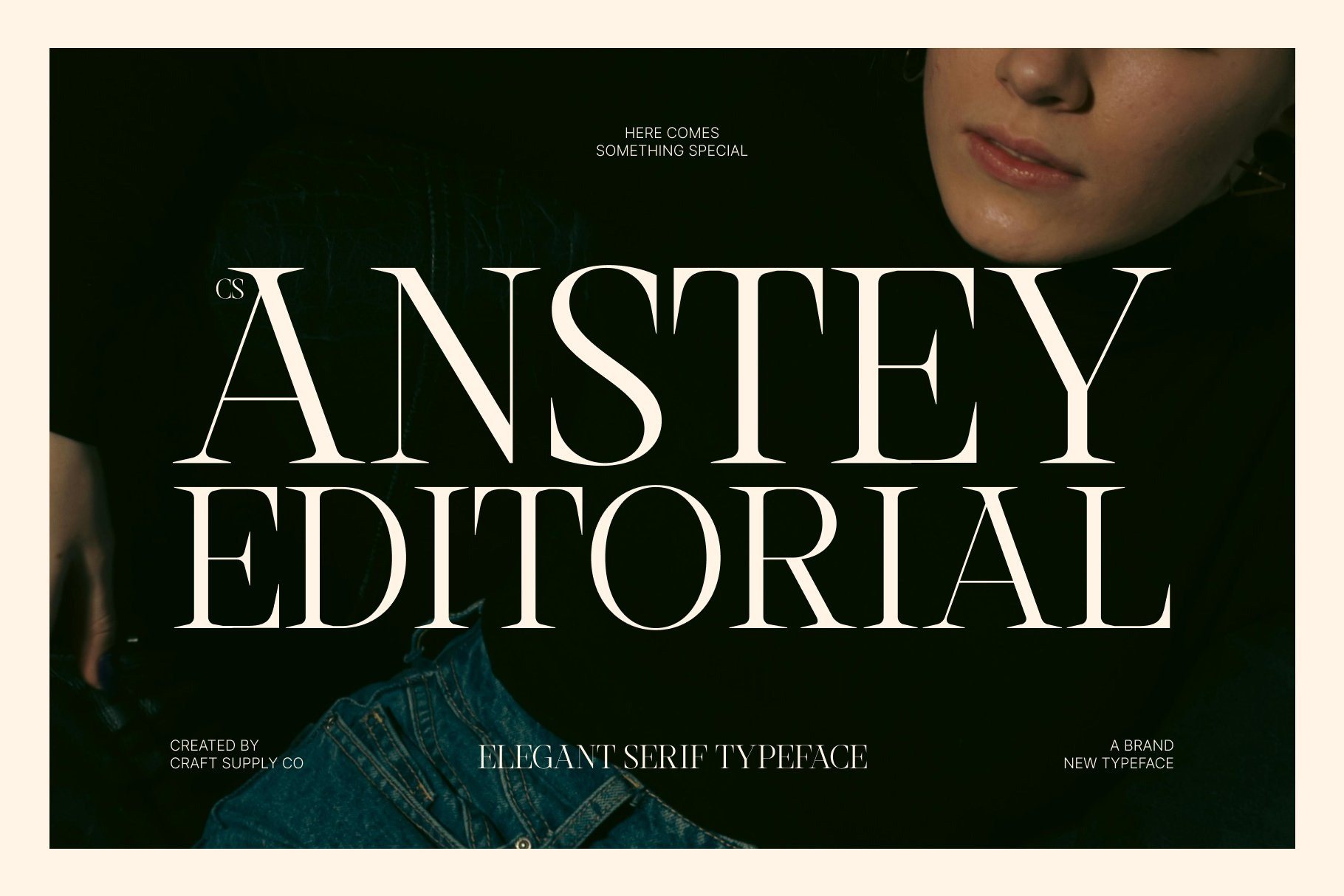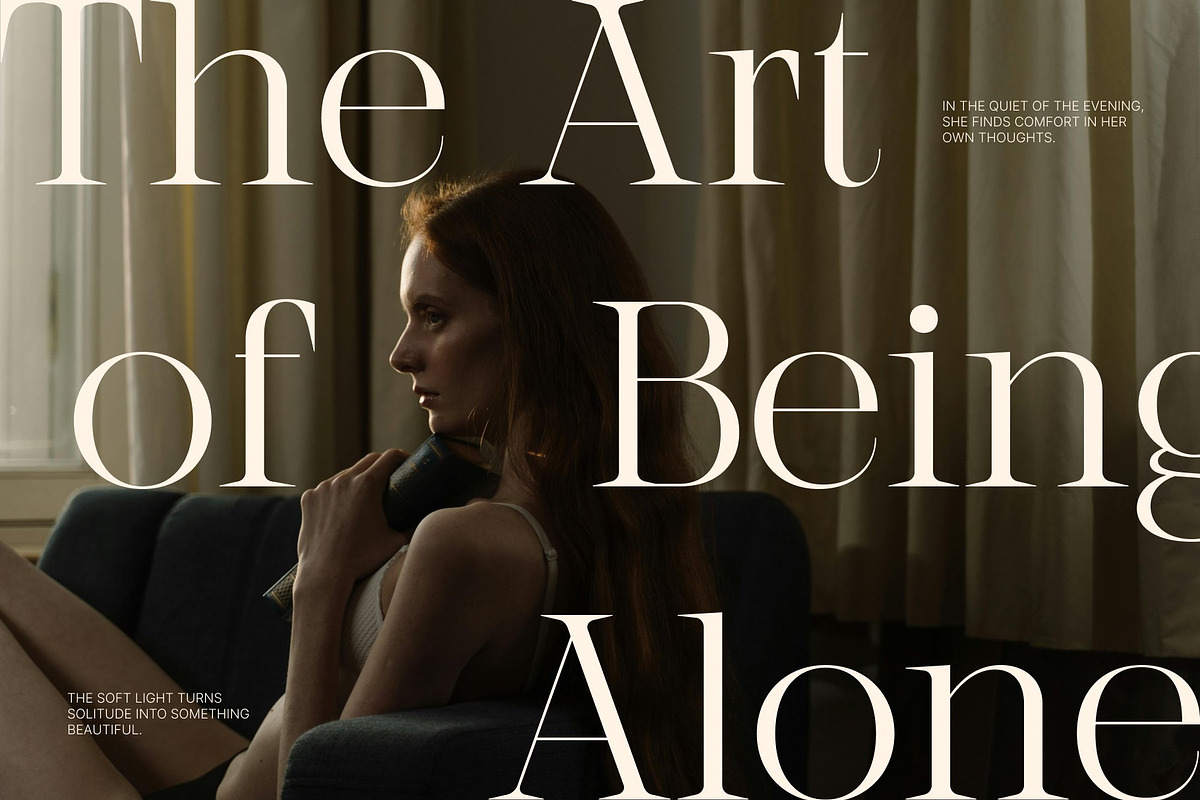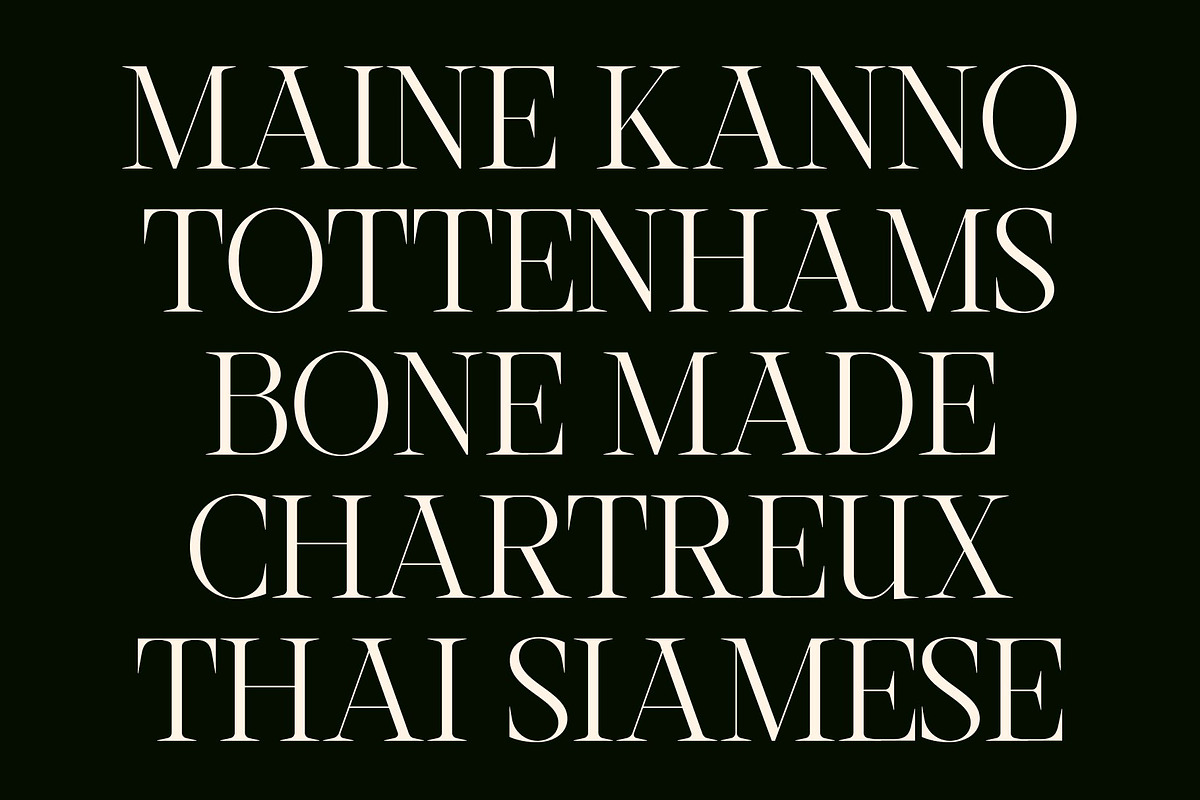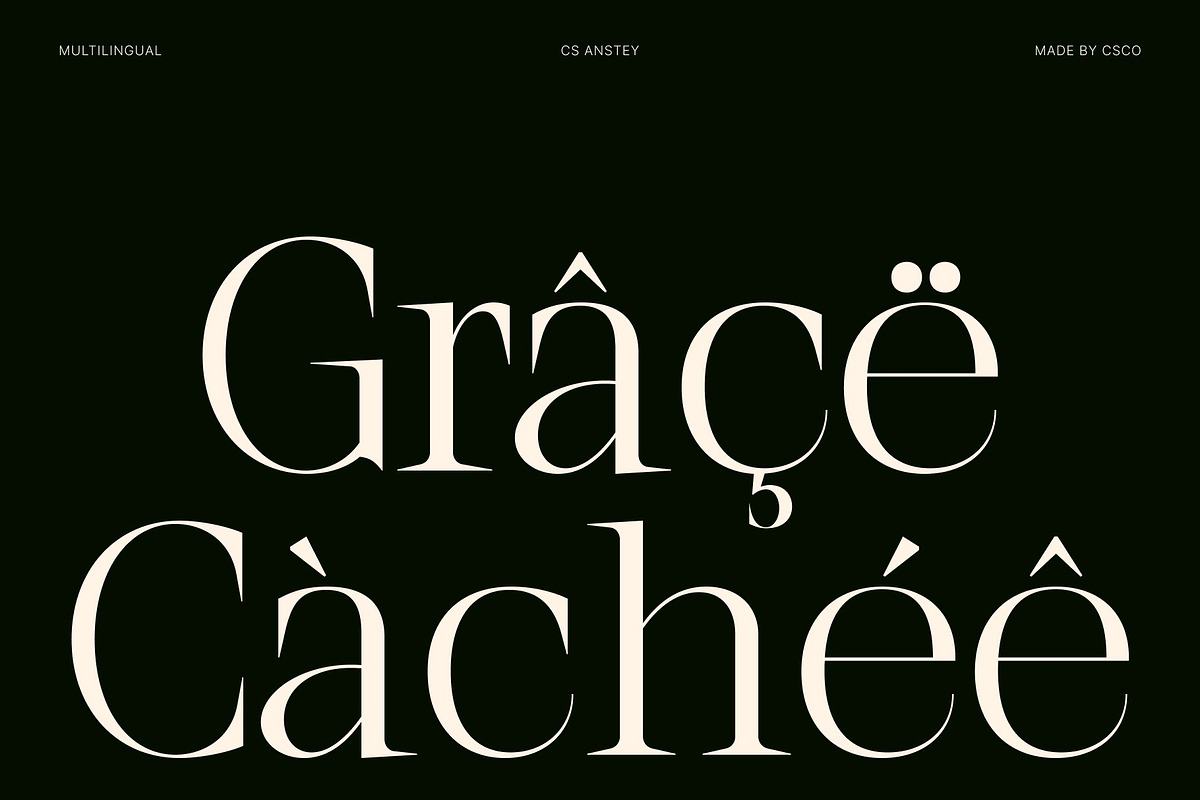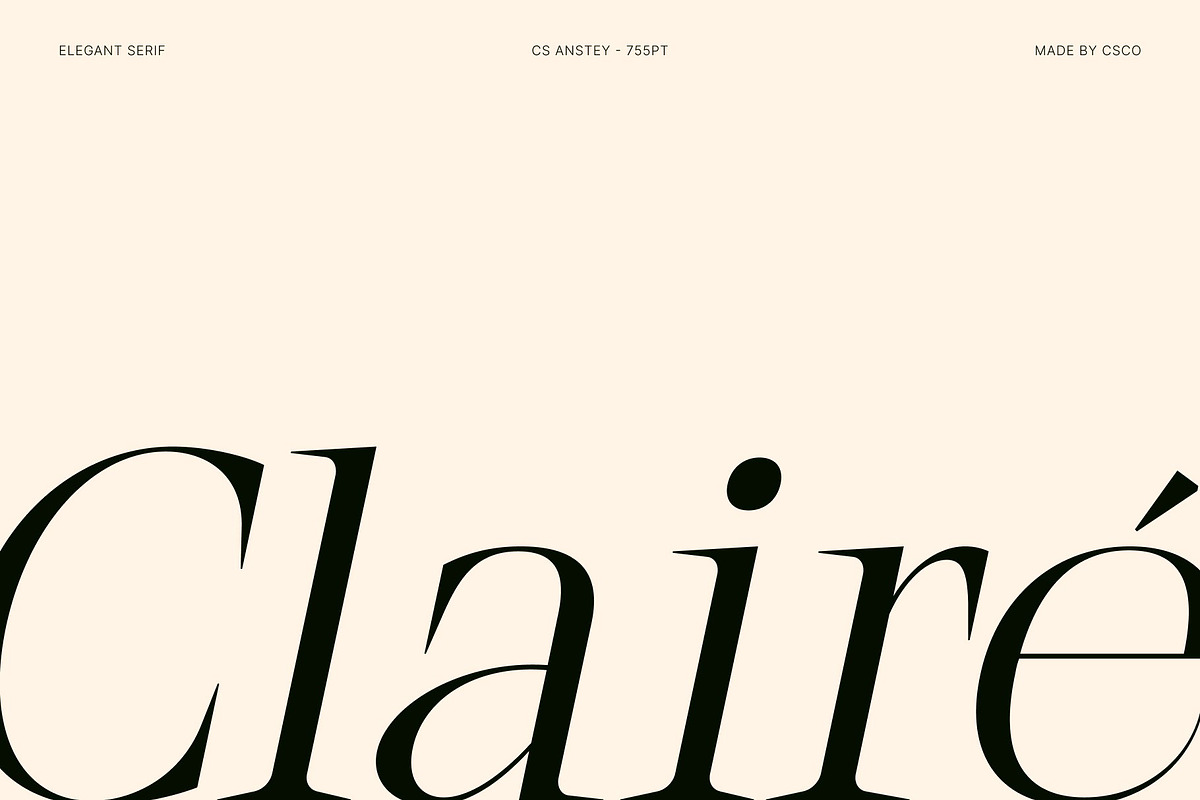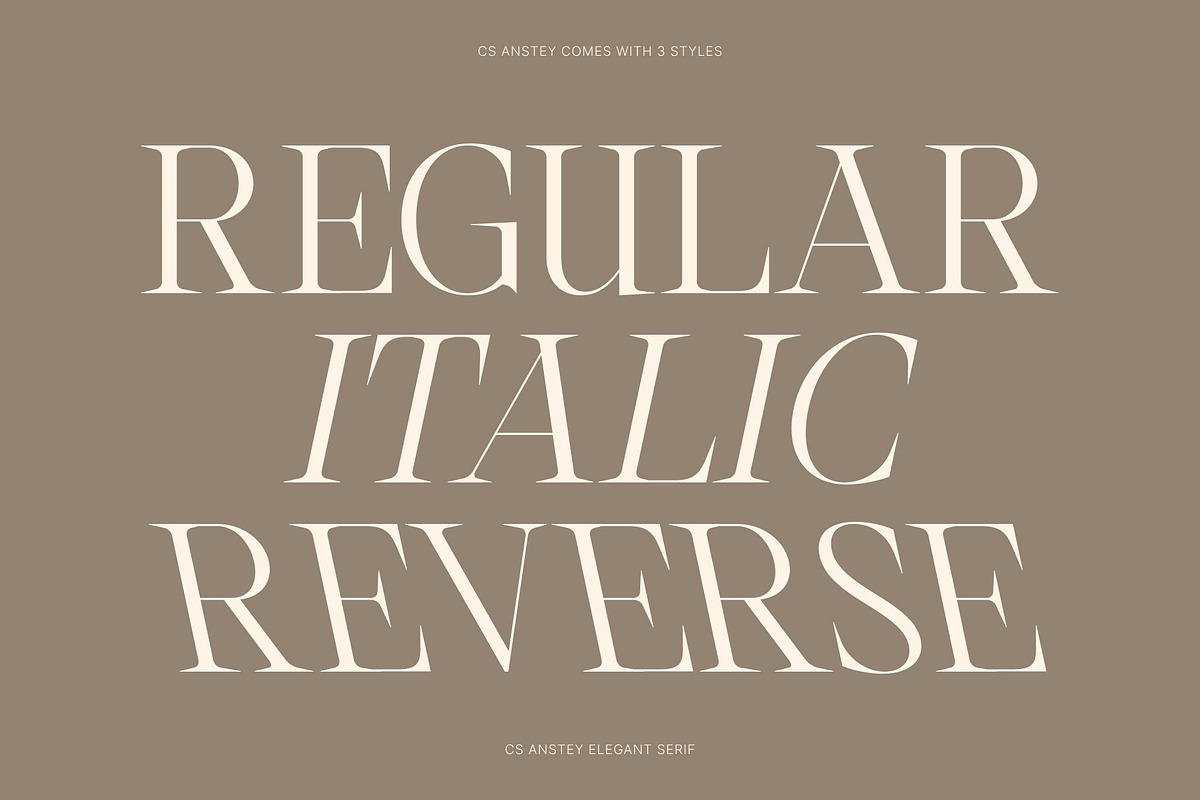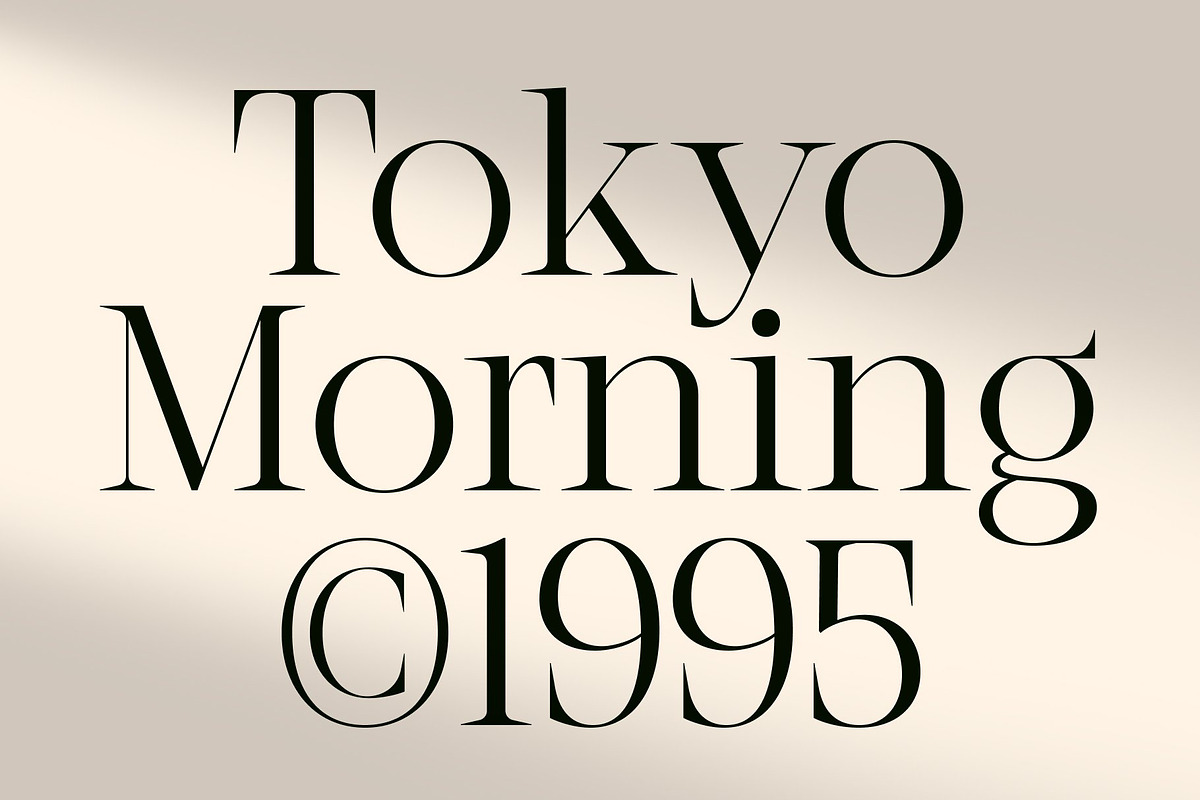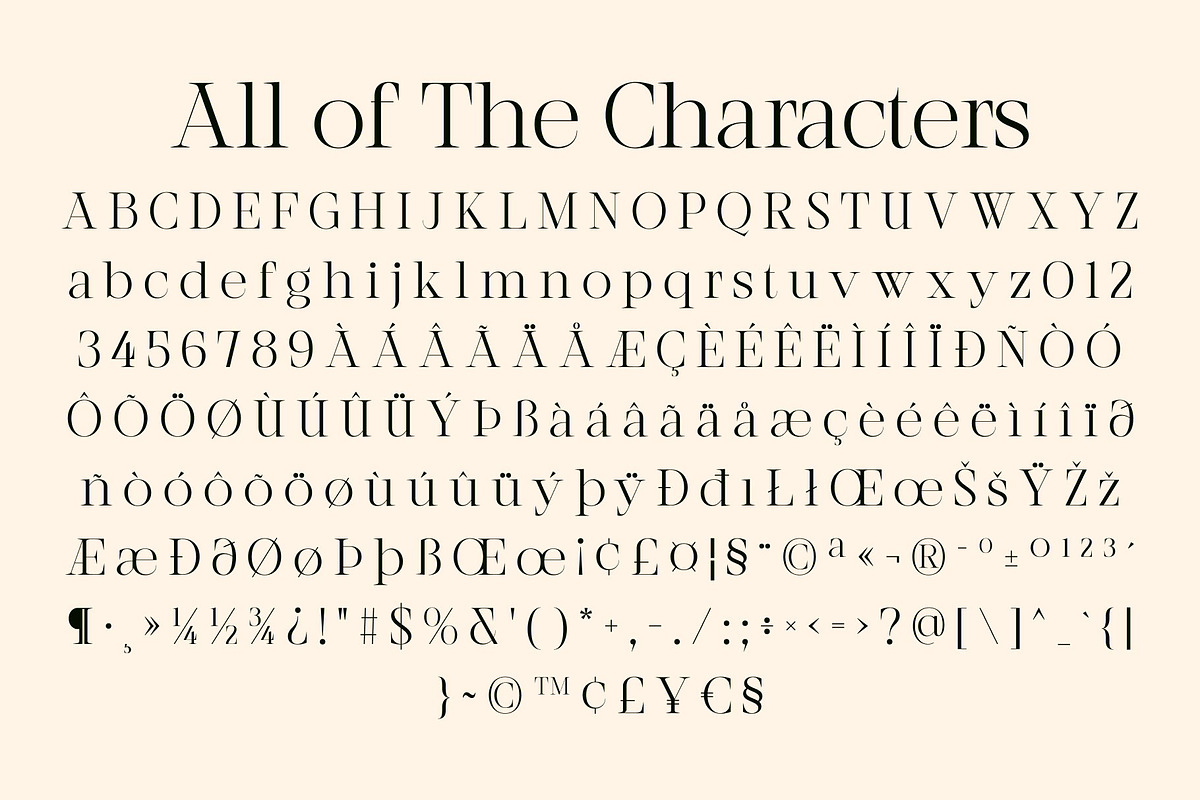
CS Anstey – Elegant Serif Font
CS Anstey – Elegant Serif Font: Where Refined Luxury Meets Timeless Sophistication
Refined Curves and Elongated Details This is an elegant serif font designed with refined curves and graceful elongated details that create a sophisticated and high-end visual presence. Its carefully balanced proportions and delicate serif features evoke a sense of luxury, elegance, and timeless beauty. Every character feels poised and meticulously crafted, making the font ideal for premium design applications.
Modern Sophistication with Timeless Character This font delivers a typographic identity that feels both modern and enduring. Its sleek structure and graceful rhythm create a polished appearance that communicates exclusivity, professionalism, and style. The result is a typeface that stands out with quiet confidence and understated luxury.
Elegant Design for Premium Visual Experiences This font offers exceptional versatility across luxury focused creative projects. Its refined letterforms create a harmonious reading experience while maintaining strong visual impact, making it equally effective for display typography and editorial compositions.
Perfect for Luxury Branding and Editorial Design This font ideal for luxury branding, editorial layouts, fashion magazines, beauty campaigns, premium packaging, invitations, logos, and high-end promotional materials. Its elegant serif forms make it perfect for headlines, visual identities, magazine titles, and creative projects that seek to communicate refinement, prestige, and contemporary luxury.
CS Anstey Regular
CS Anstey Italic
CS Anstey Reverse Italic